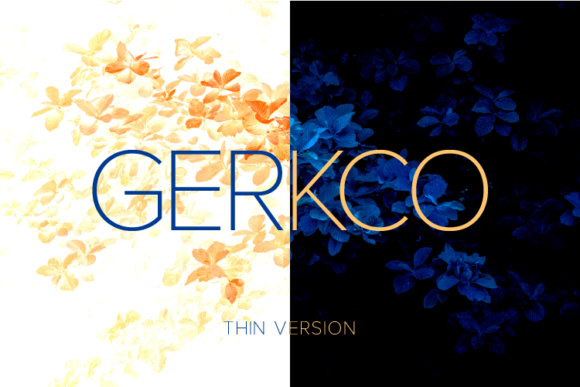
Gerkco Thin Font
Unleash the Elegance and Modernity of Gerkco Thin Font:
Embark on a typographic journey with Gerkco Thin, a sans serif font that exudes sophistication and timelessness. Designed by the talented Huntype, this font family captivates with its clean lines and graceful curves, making it an ideal choice for a wide range of creative projects.
Step into a world of design possibilities, where Gerkco Thin becomes your trusted companion. Whether you're crafting a captivating logo that commands attention or creating social media posts that spark engagement, this font will elevate your designs to new heights. Its versatility extends to book covers, where its elegant presence adds a touch of sophistication and intrigue.
With Gerkco Thin, your designs will radiate a sense of balance and modernity. Its carefully crafted characters strike a harmonious balance between classic and contemporary, ensuring your projects stand out from the crowd. Embrace the power of Gerkco Thin and transform your creative visions into captivating realities.